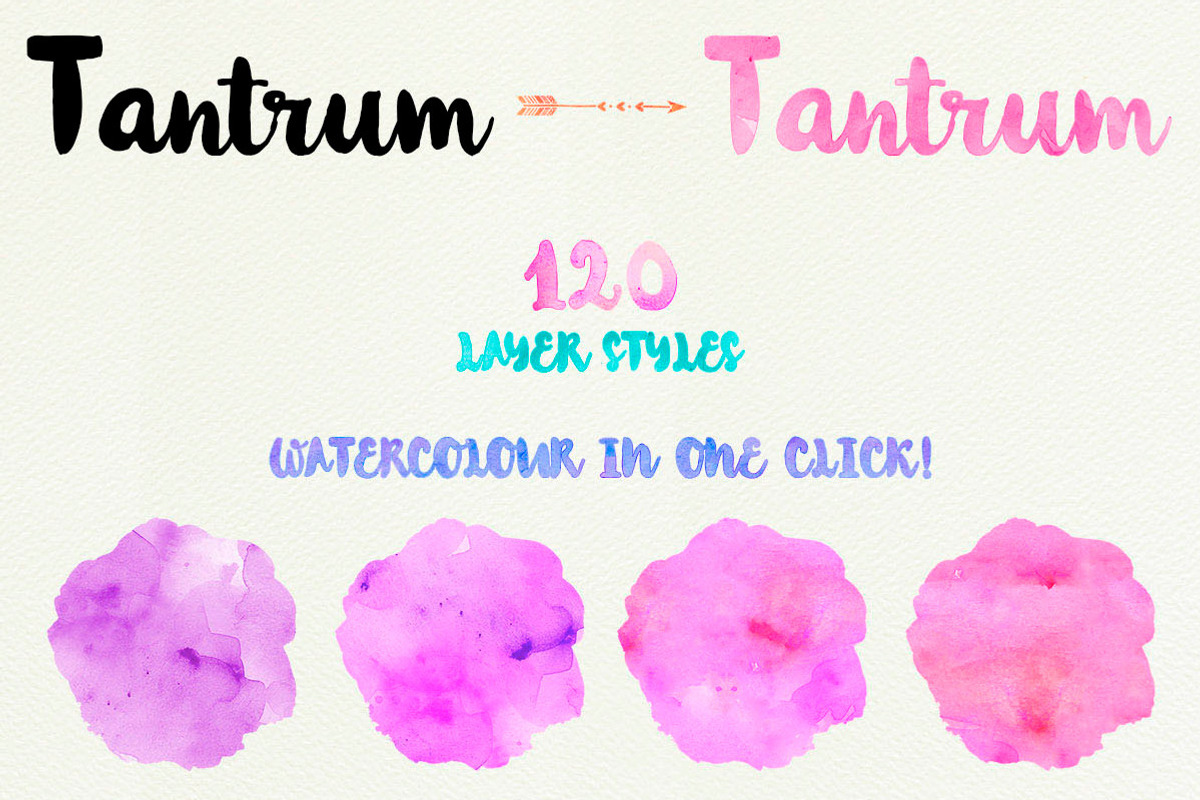
Watercolor Kit Styles + Typeface
- Tantrum Typeface
- Aurada Typeface
- Aurada Contoured Typeface (alternate contoured typeface)
- The: "Tantrum Typeface" comes with alternate upper and lowercase characters.
- "Aurada Typeface" comes with alternate upper and lowercase contoured characters.
- :D Fonts included: Tantrum Typeface Tantrum Alternate Typeface (you can use, or not use this font, I was just playing around a bit with the
Why Watercolor Kit Styles + Typeface is worth a look